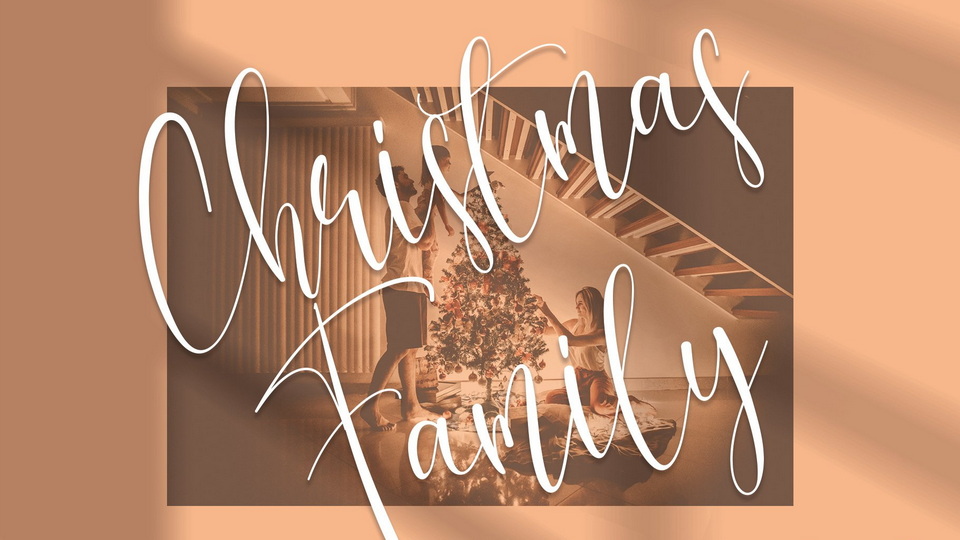
Download Christmas Family font, a delicate and elegant handwritten typeface made of beautiful creative strokes. Christmas Family font is perfect for your creative ideas, both formal and informal.